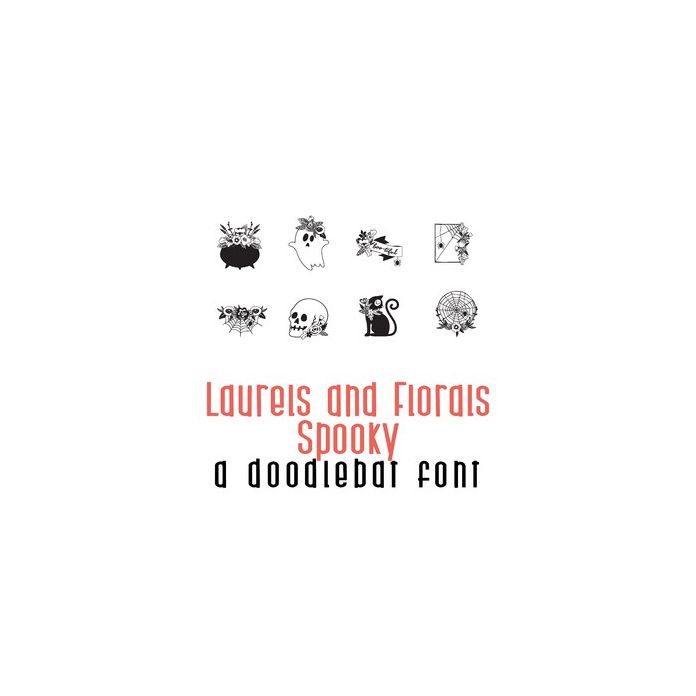
This beautiful doodlebat font features 26 different spooky floral imagery. Perfect for cards, crafts, gifts, decor, planner stickers, scrapbook pages and more!